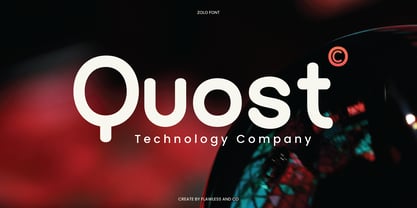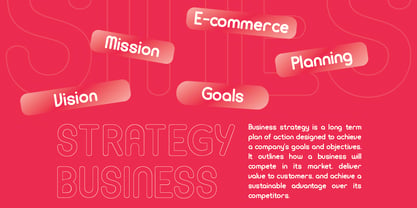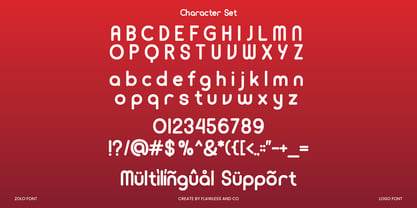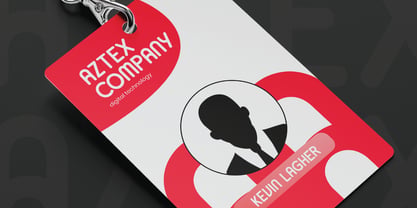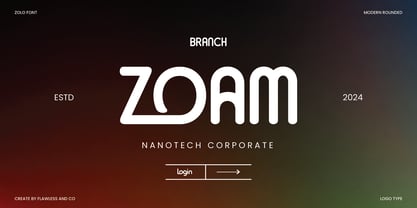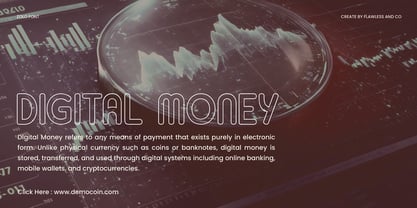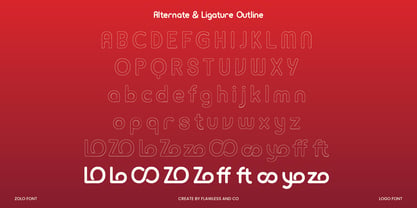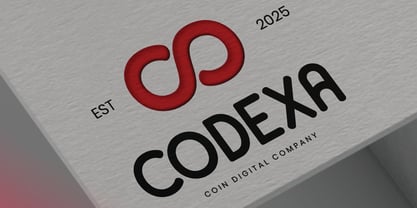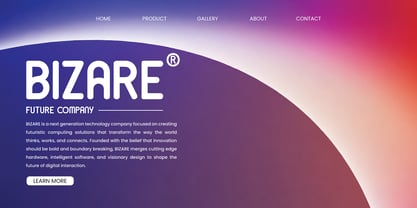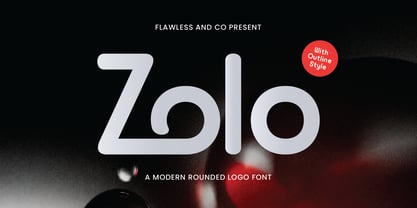
Zolo
by Flawlessandco
The Zolo Font Family was designed by Achmad Yani and published by Flawlessandco. Zolo contains 1 styles. More about this family
ZOLO is a sleek and minimal rounded typeface designed to make your brand shine. With its smooth curves and clean structure, ZOLO brings a contemporary and friendly character to logos, tech products, branding assets, and display layouts. It comes with two distinctive styles: regular and outline, giving you flexibility in building dynamic visual identities. Whether you're crafting a futuristic logo or an approachable tech brand, ZOLO delivers clarity and elegance in one modern package.
Features :
Multilingual, Uppercase alphabet A-Z, Lowercase alphabet a-z, Numbers 0-9, Some punctuation, Alternates & Ligatures
Designers: Achmad Yani
Foundry: Flawlessandco